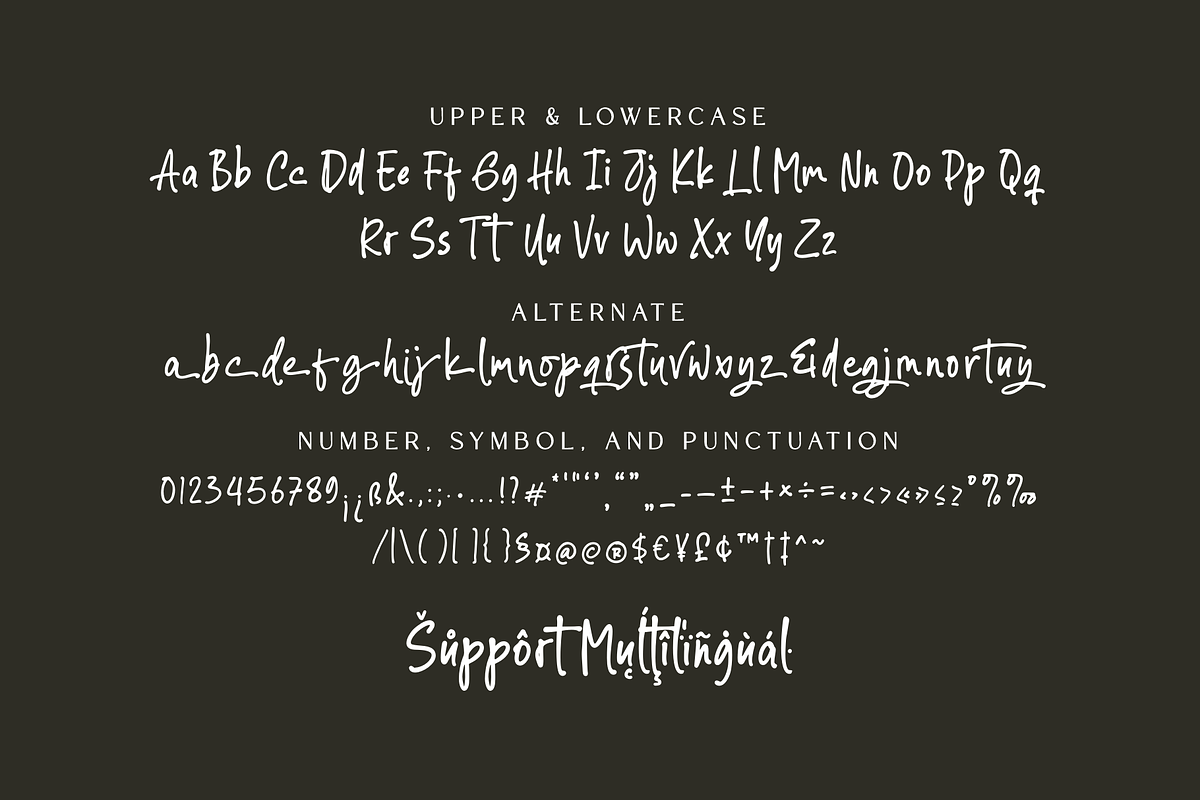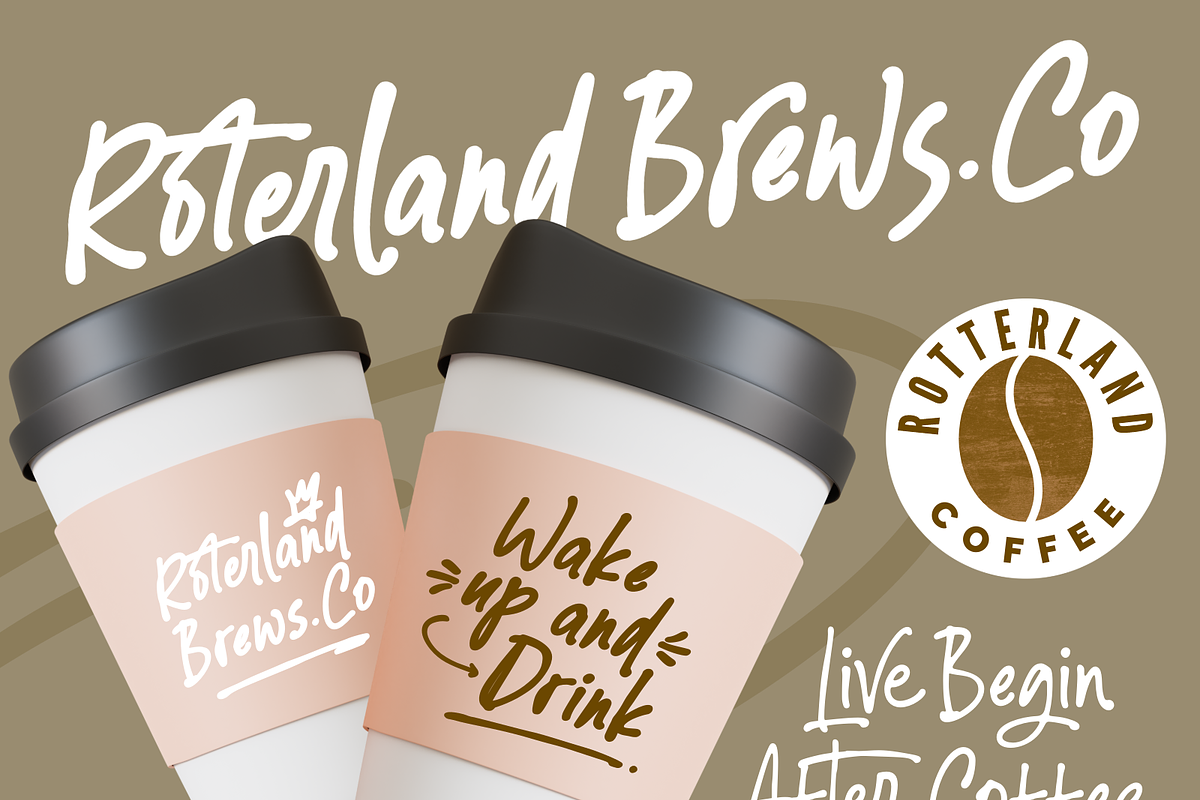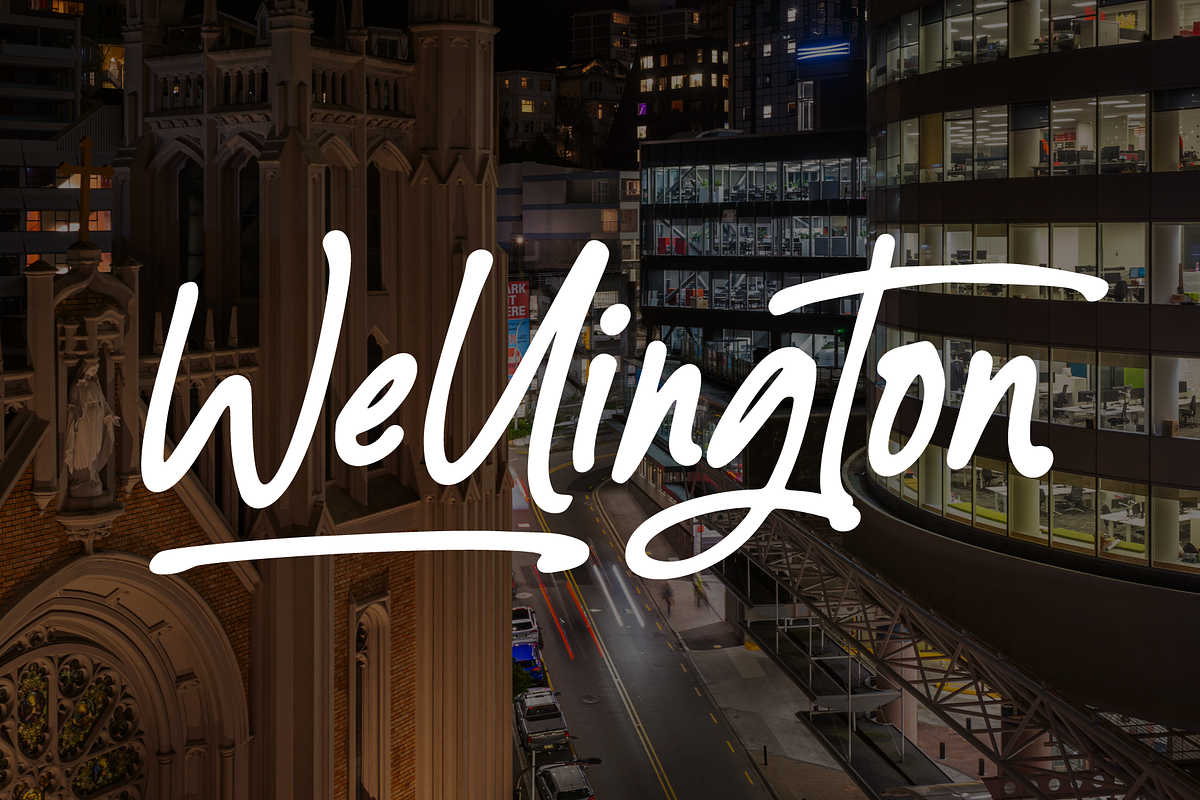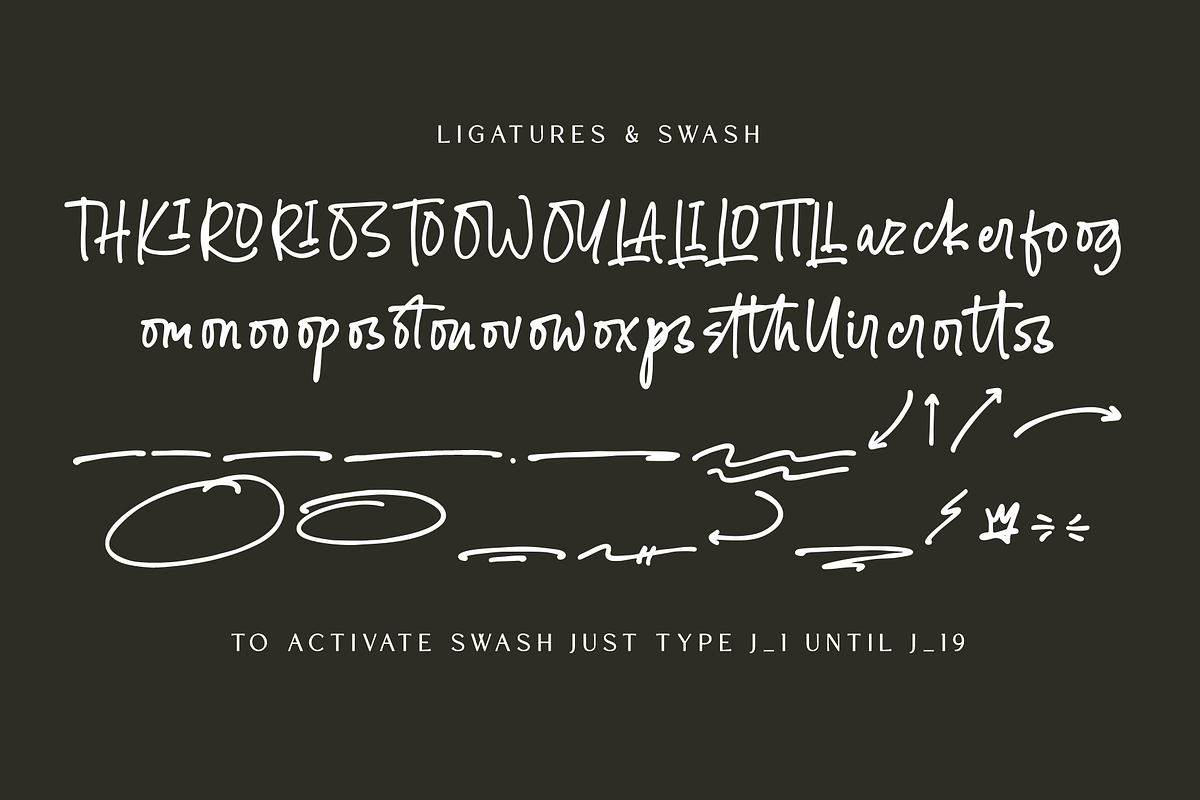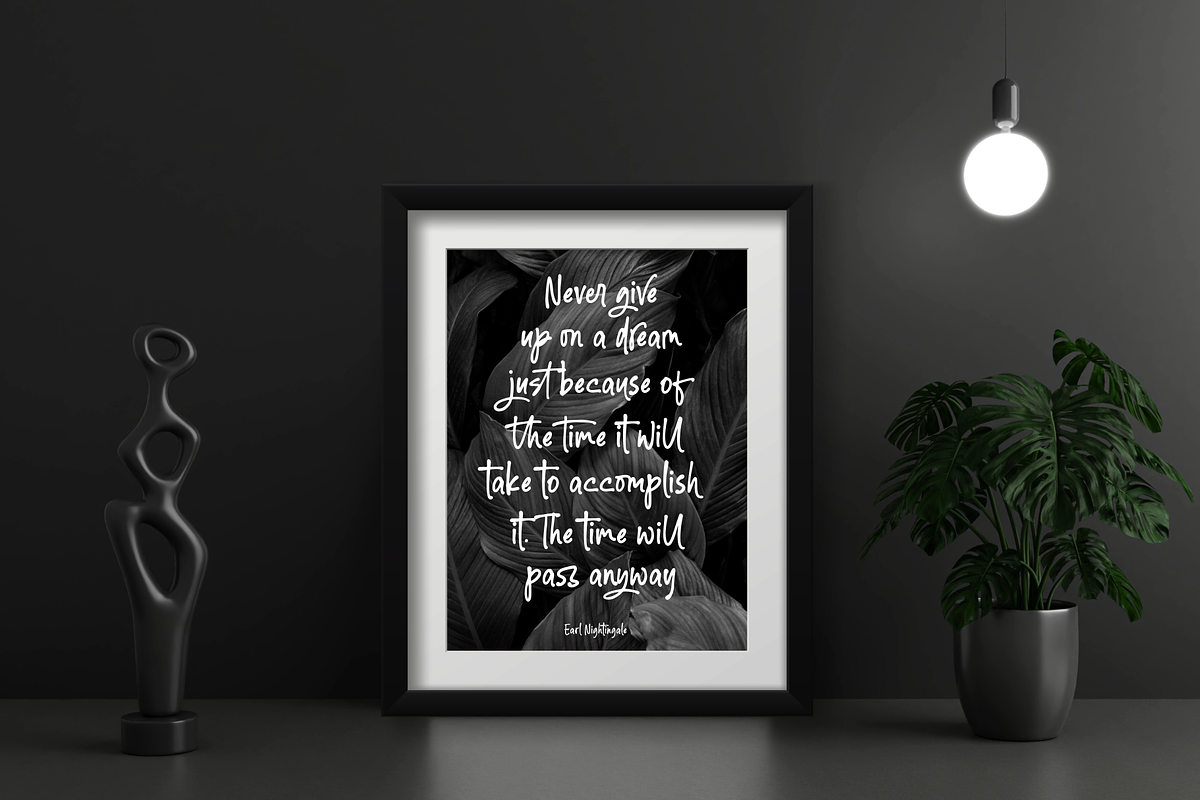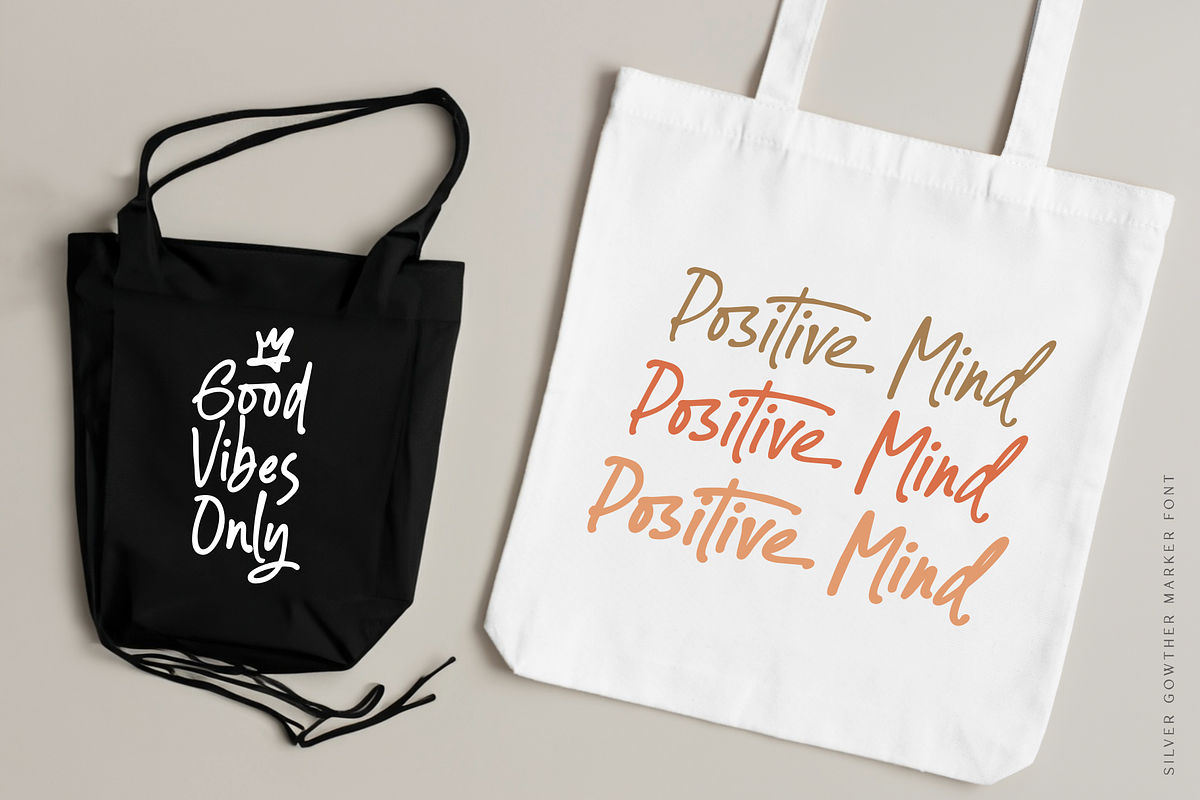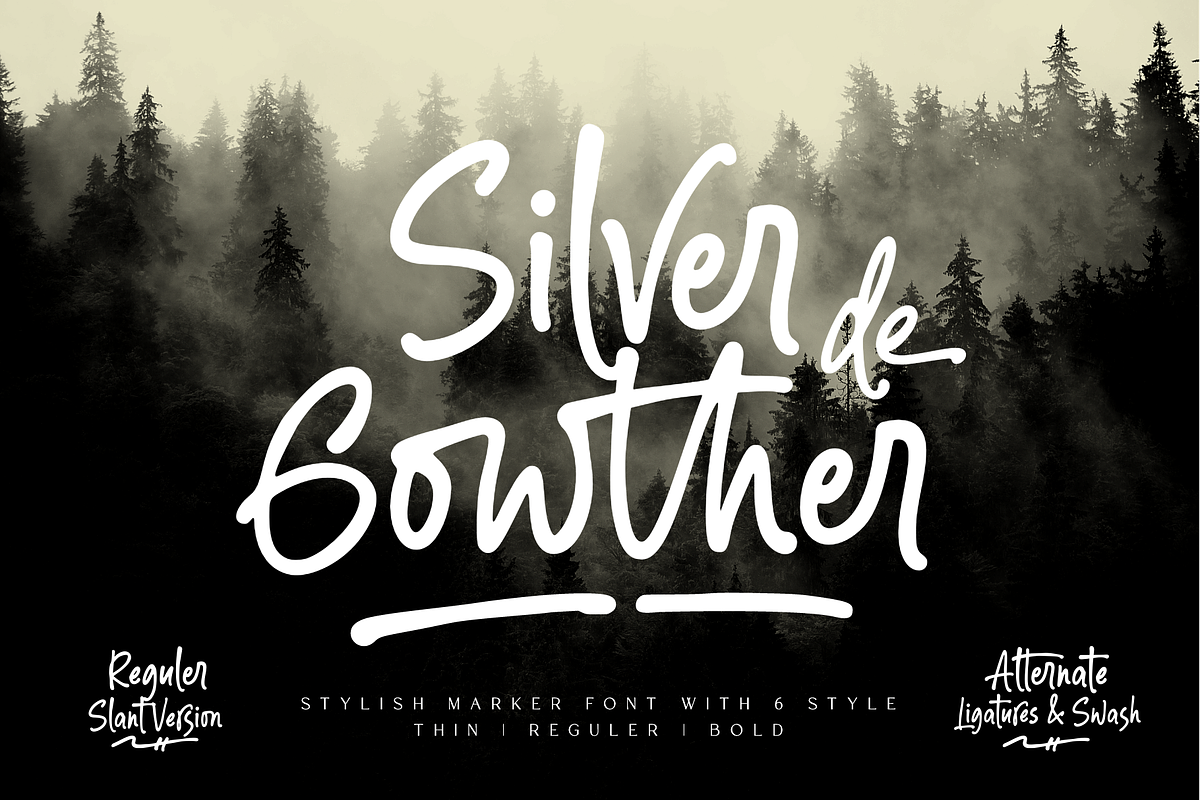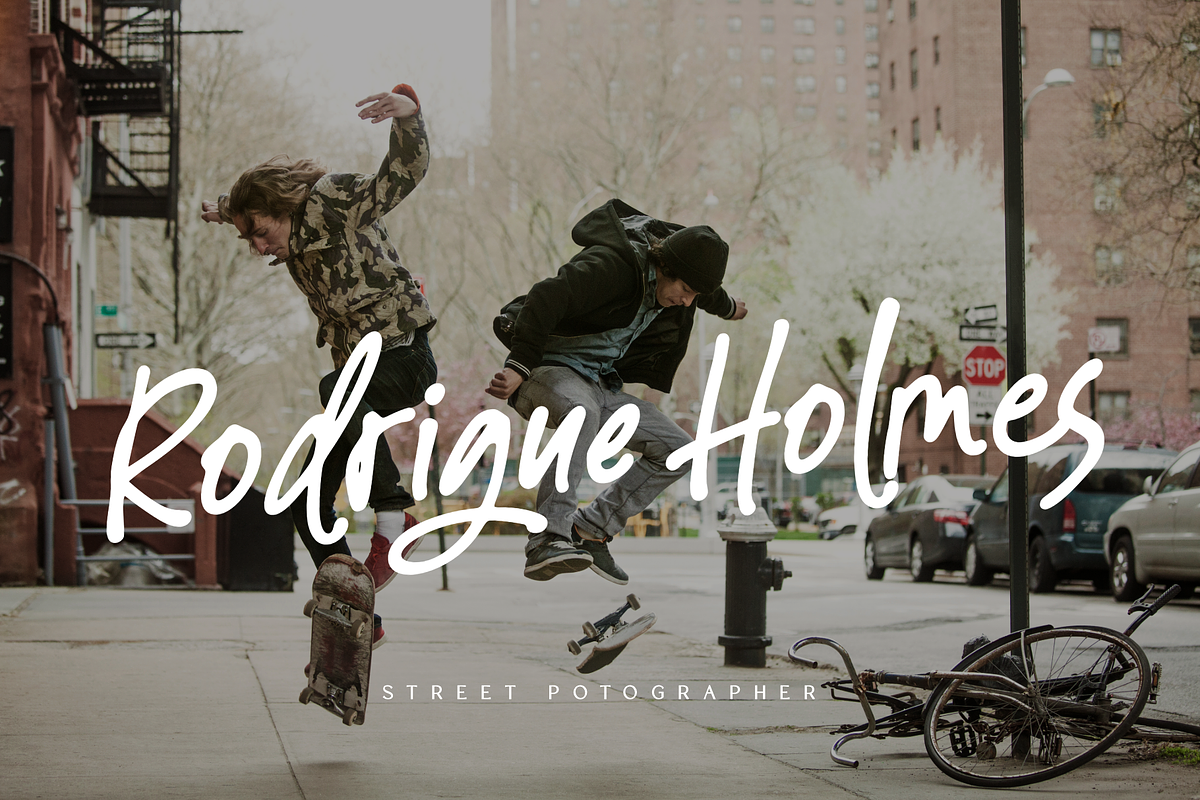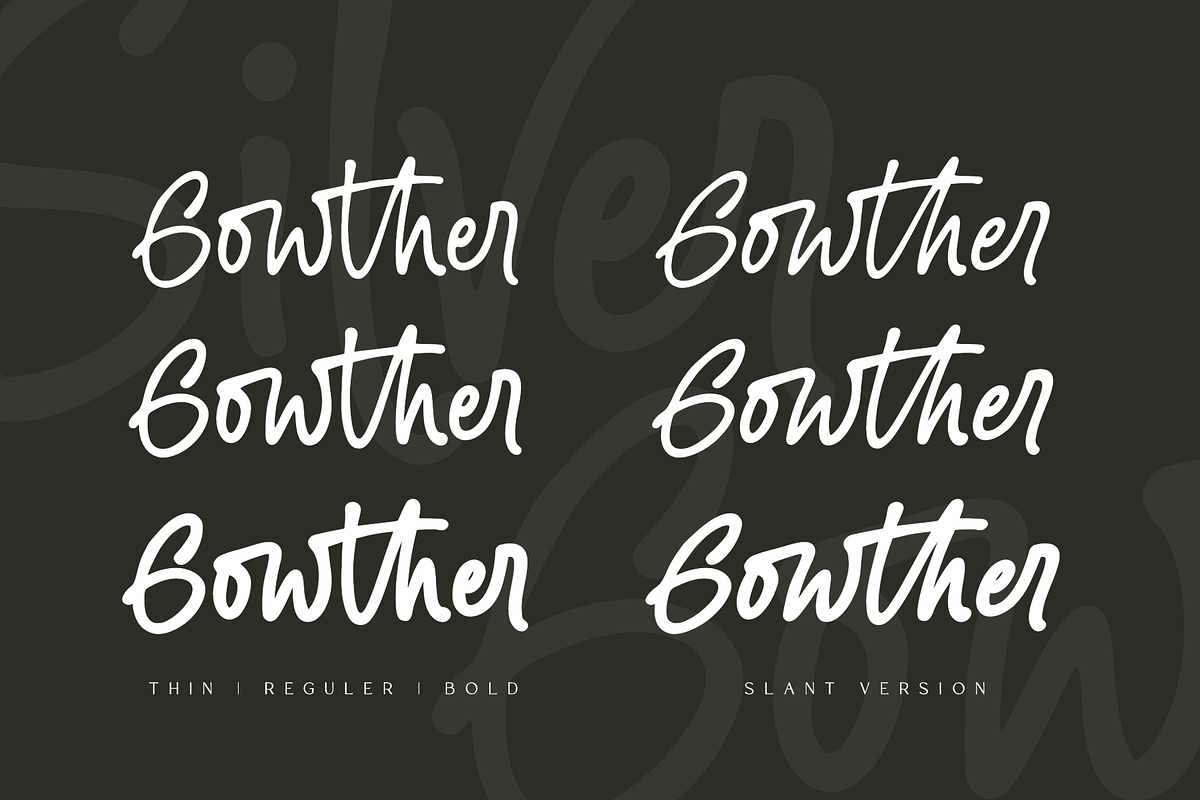
Silver Gowther Marker Font
Introducing Silver Gowther, a stylish and versatile marker font available in 6 styles: thin, regular, and bold, each with an slant version. This font is perfect for branding and promotional materials, adding a touch of elegance and personality to your designs. With the included alternate ligatures and swashes, you can easily fine-tune your text to your desired style. Plus, Silver Gowther offers multilingual support, ensuring clear communication between diverse audiences. Unlock the creative potential of your projects with Silver Gowther today!
- A set of uppercase and lowercase glyphs
- Number, symbol, and punctuation
- Alternates, ligatures, and swashes
- Slant Version